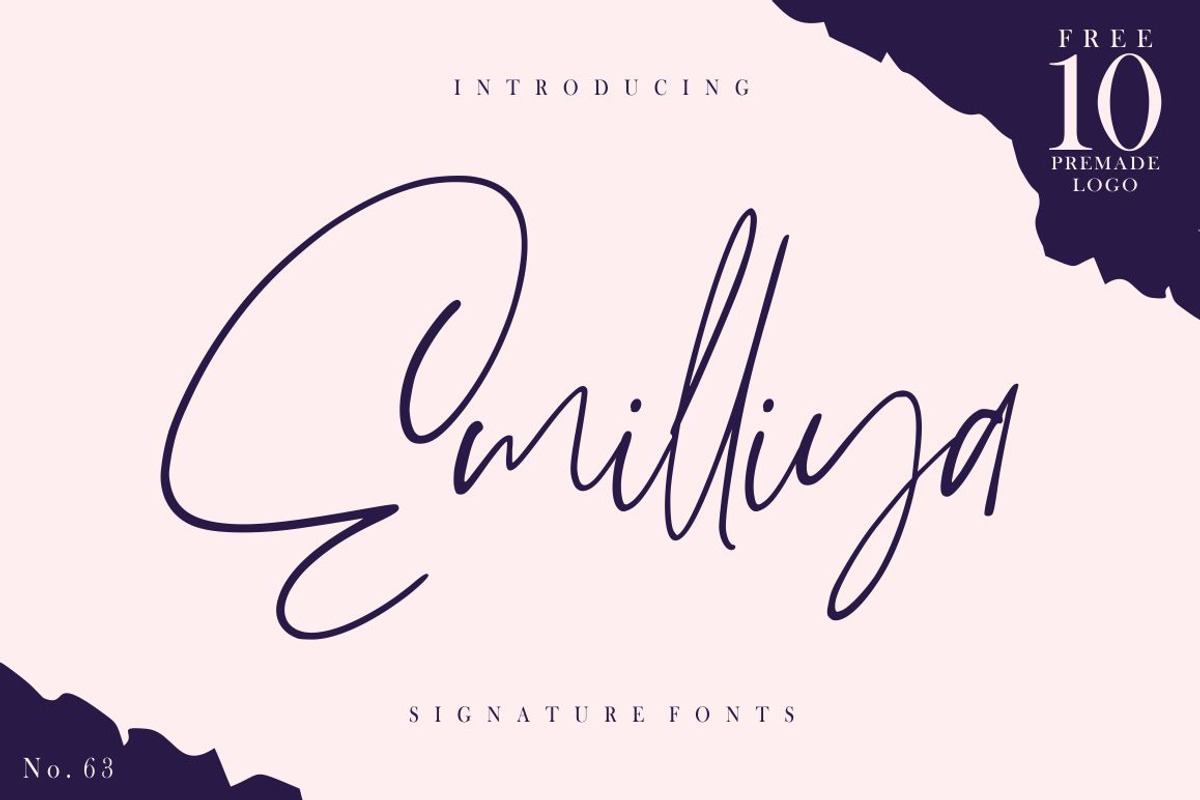
Emilliya // Luxury Signature Font Free Download
Emilliya // Luxury Signature Font Free Download is an elegant and sophisticated handwritten script typeface designed to add a luxurious touch to your designs. With its smooth, flowing strokes and graceful curves, this font is perfect for high-end branding, wedding invitations, logos, fashion-related designs, and any project that requires a refined and personal touch.
Its signature-style design gives your typography a sense of authenticity and luxury, making it ideal for upscale, creative, and elegant projects.